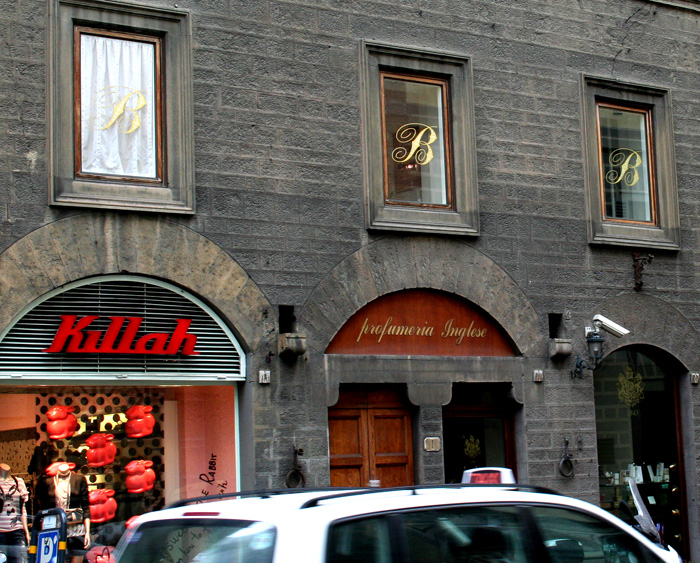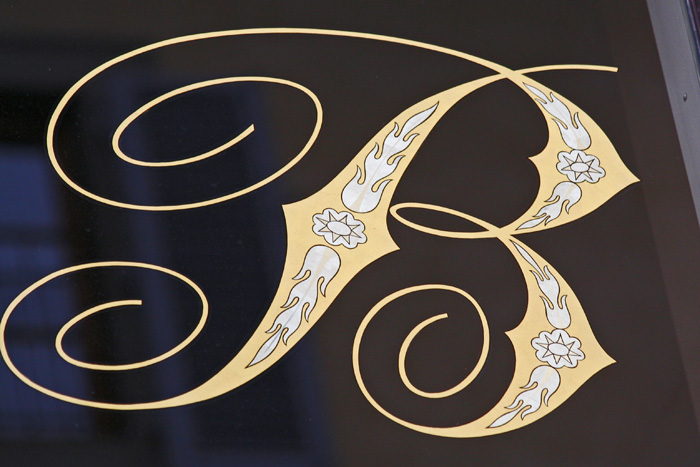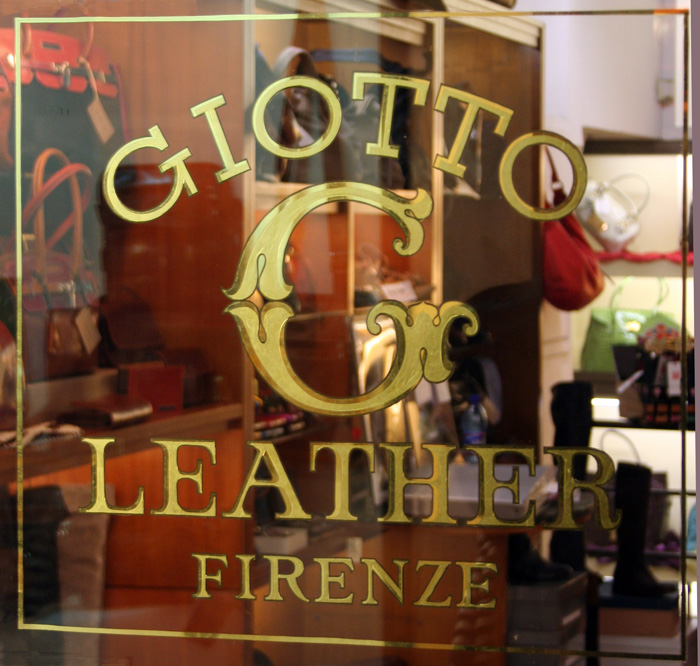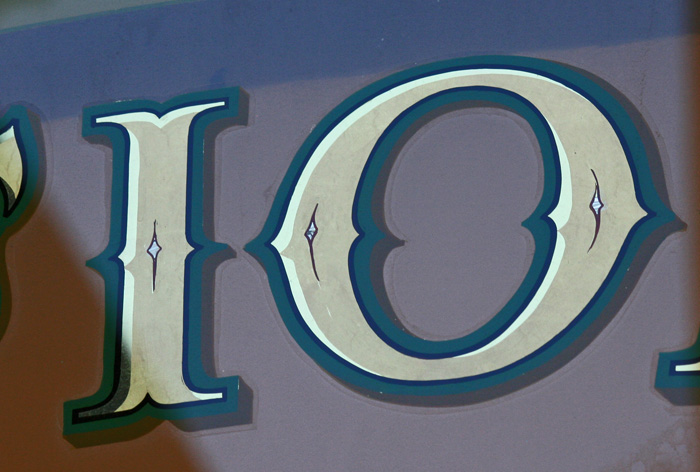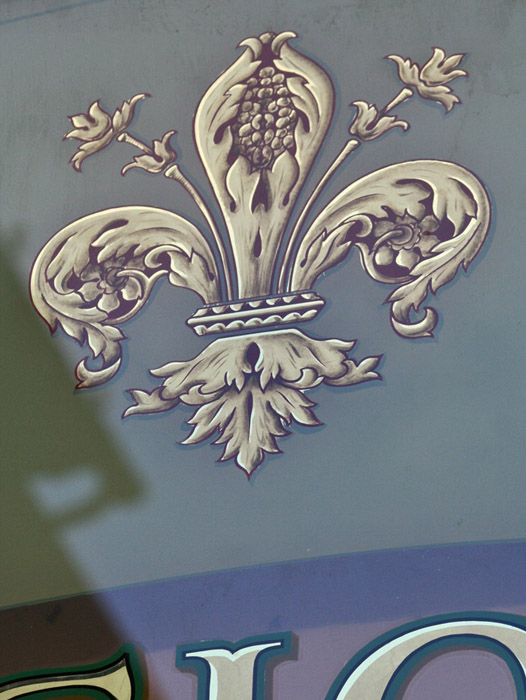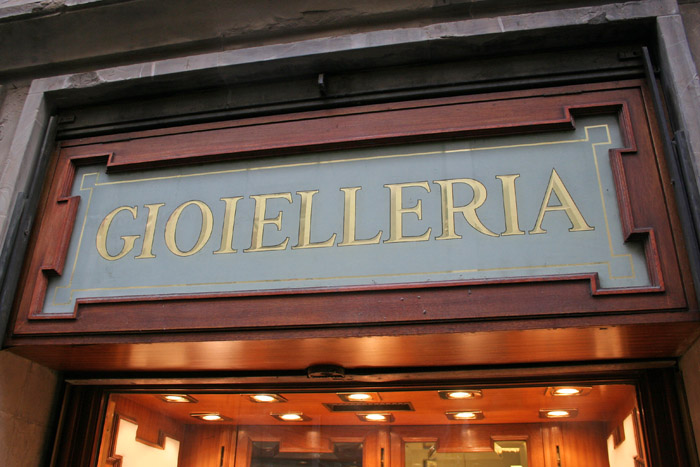
Florence window gilding
Last fall my wife & I spent 3 weeks in Italy. One of the most enjoyable aspects of the trip was the week we spent in the heart of Florence. We had a room in a vintage hotel located on the Arno River right beside the Ponte Vecchio. Ancient history oozed from the architecture and art as well as every brick & cobblestone; yet one thing that caught my camera's eye was the ubiquitous gilding on the storefront windows. Almost everything was executed in a particular style - a version of what I've always known as "Chicago-style" - using both a matte finish (with varnish size) and a mirror finish (with water size). This can be executed fairly rapidly and increases visibility by combining the constancy of the matte gold with the flashy burnished gold which changes as one moves in front of the glass.
Not only the nice designs but the craftsmanship was a pleasure to see. Hand-executed fine outlines (1/16”) with subtle color choices – though not really visible in these photos – was common fare.
I'm posting here a few meager samples of some of the pictures I captured while wandering around the city. Then I'll follow up later with another post of what became my favorite window.
Not only the nice designs but the craftsmanship was a pleasure to see. Hand-executed fine outlines (1/16”) with subtle color choices – though not really visible in these photos – was common fare.
I'm posting here a few meager samples of some of the pictures I captured while wandering around the city. Then I'll follow up later with another post of what became my favorite window.
Hi Dan, very nice eye candy. Thank you for sharing your great gilding 'finds'. Please share some more with us. In the second photo what is the background behind the "Caffee'" lettering - it looks like it might be copper leaf?
I also like the Chicago style Dan. I seen very simalar work while in Venice last year,mat and burnished work on nearly every street and walk way. All hand done .
Going to Florence made my want to move there to gild. Your top photo is the same one I have on my web site.
What you are seeing behind the Cafe lettering is actually the ceiling of the shop.
I don't think I saw any copper gilding on our trip, but I did see a lot of copper in Asissi - statuary, bas-relief, light fixtures, etc. Seemed to go beautifully with the pink stone quarried from Mount Subasio which gives this town a unique appearance.
Dave, I remember the photos you posted and saved them to my hard-drive. Would love to have seen that in person.
Attaching a couple more photos here.
What you are seeing behind the Cafe lettering is actually the ceiling of the shop.
I don't think I saw any copper gilding on our trip, but I did see a lot of copper in Asissi - statuary, bas-relief, light fixtures, etc. Seemed to go beautifully with the pink stone quarried from Mount Subasio which gives this town a unique appearance.
Dave, I remember the photos you posted and saved them to my hard-drive. Would love to have seen that in person.
Attaching a couple more photos here.
The photo you have on your website (Orologeria) is, if I recall, part of the same storefront but the background was beginning to flake off. So I've posted a picture of "Gioilleria" - which was in better condition.
As promised earlier:
The front door for Papini Leather became my favorite window sign in Florence. The store was located just a few doors from our hotel on the Arno river. I went inside & spent some time speaking with Mr. Papini. His grandfather started the business in 1896, and currently his daughter & granddaughter work at the store - 5 generations. He took me to the back to show me a case filled with well used leather-working tools and also showed me an old photograph of the front of the store where the sidewalk was littered with bombs left behind by the Nazi army after World War 2.